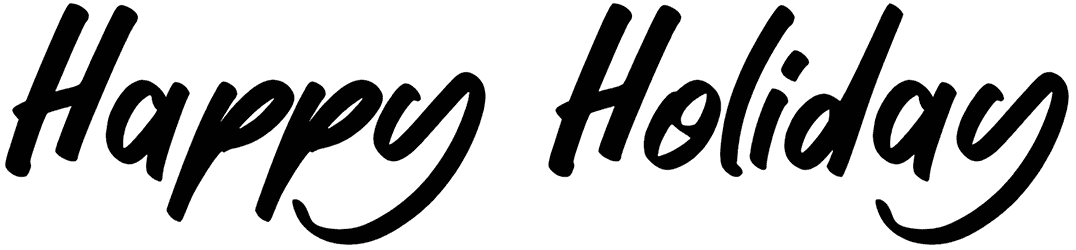
Happy Holiday Font
Do you want to add a sense of personality and originality to your projects, and need a script font for this? So be sure to check out Happy Holiday. This handwritten font can transfer the unique charm of human writing to…
Do you want to add a sense of personality and originality to your projects, and need a script font for this? So be sure to check out Happy Holiday. This handwritten font can transfer the unique charm of human writing to your designs and even give a more personal touch to digital elements.
For this reason, it is a great choice for designing logos of companies that want to look friendly and informal, clothing and stationery, or even tattoos.